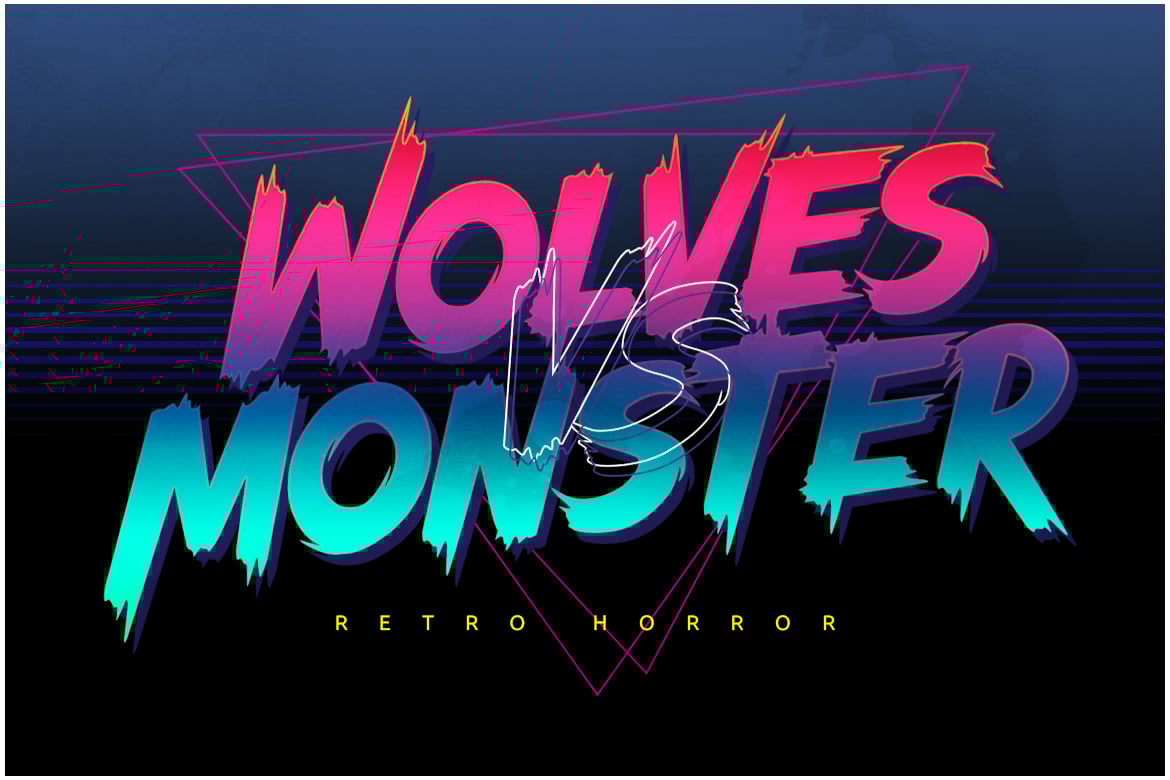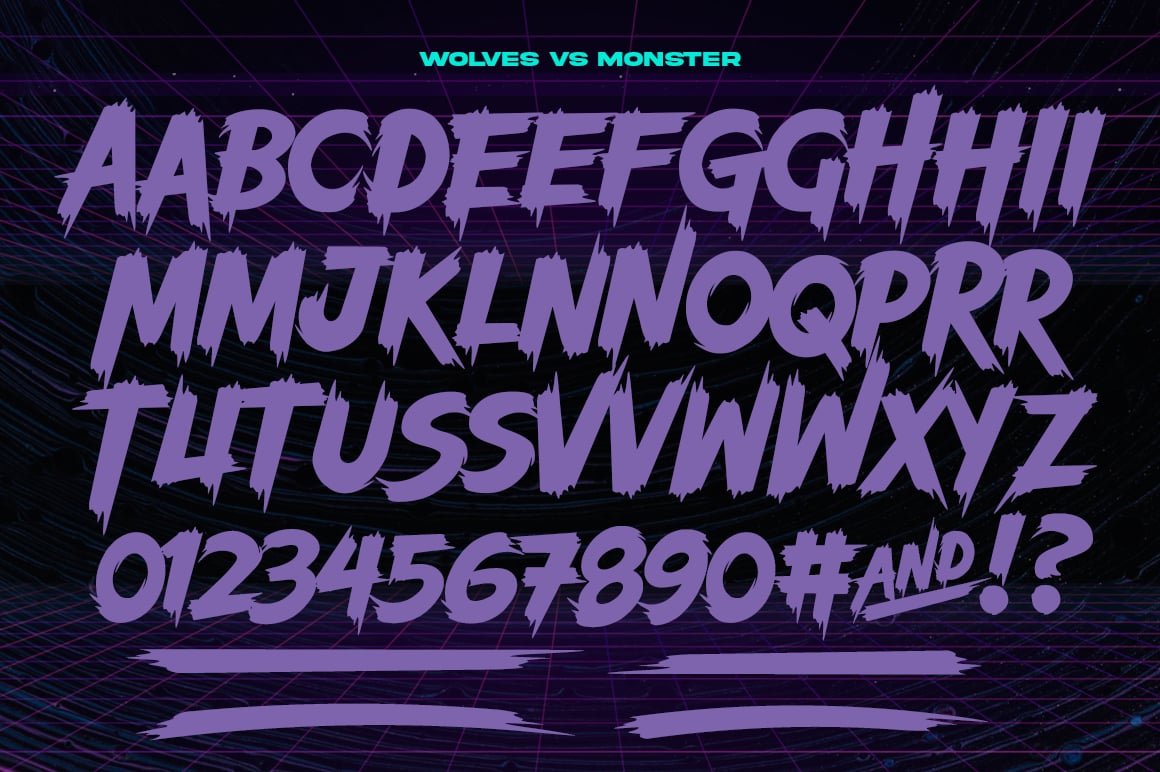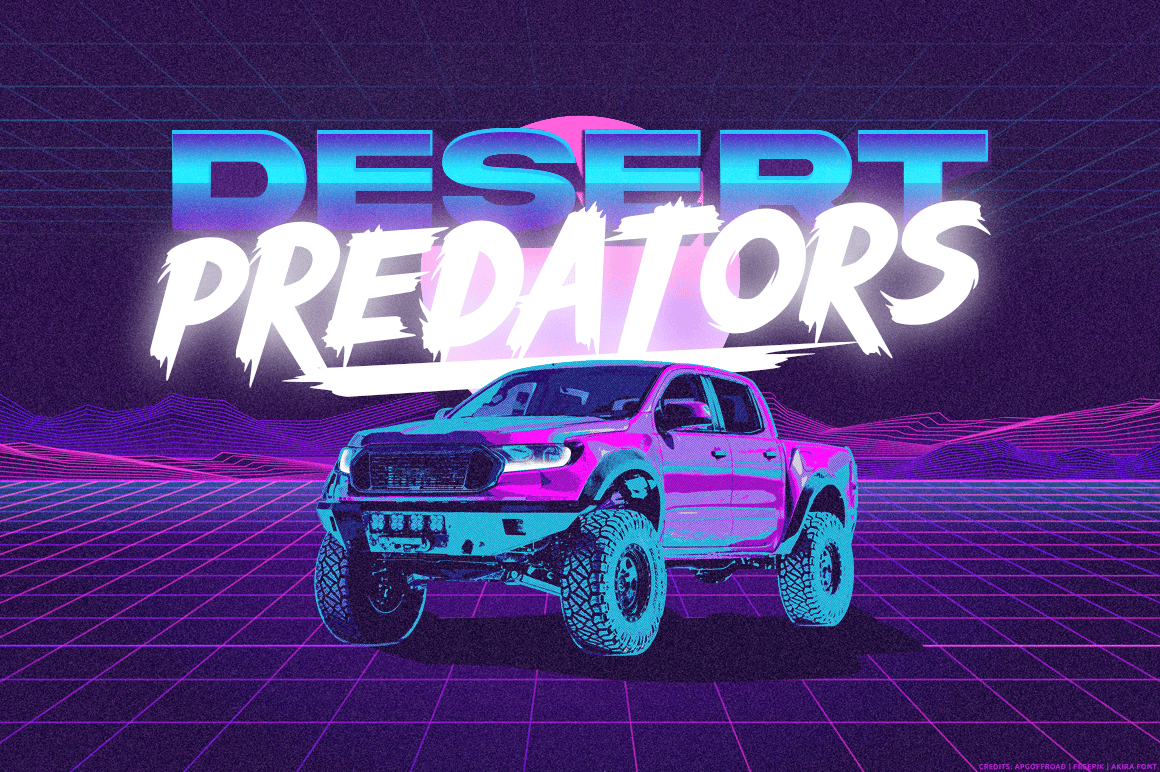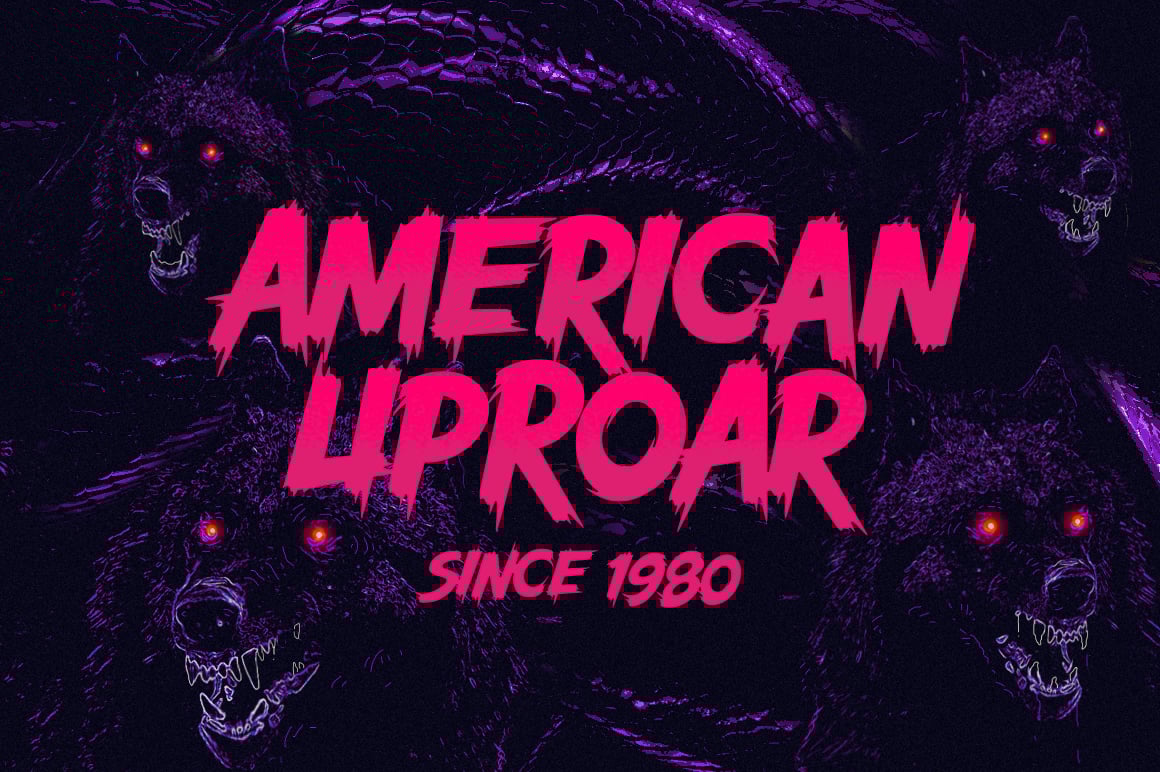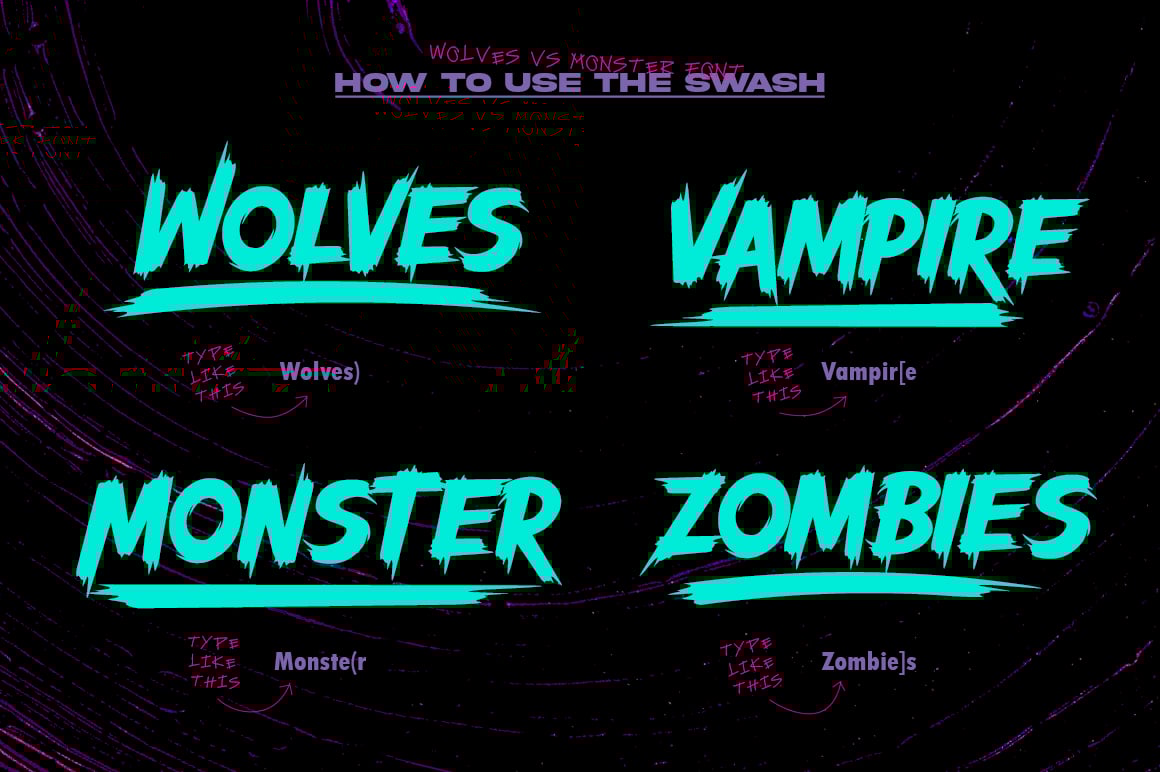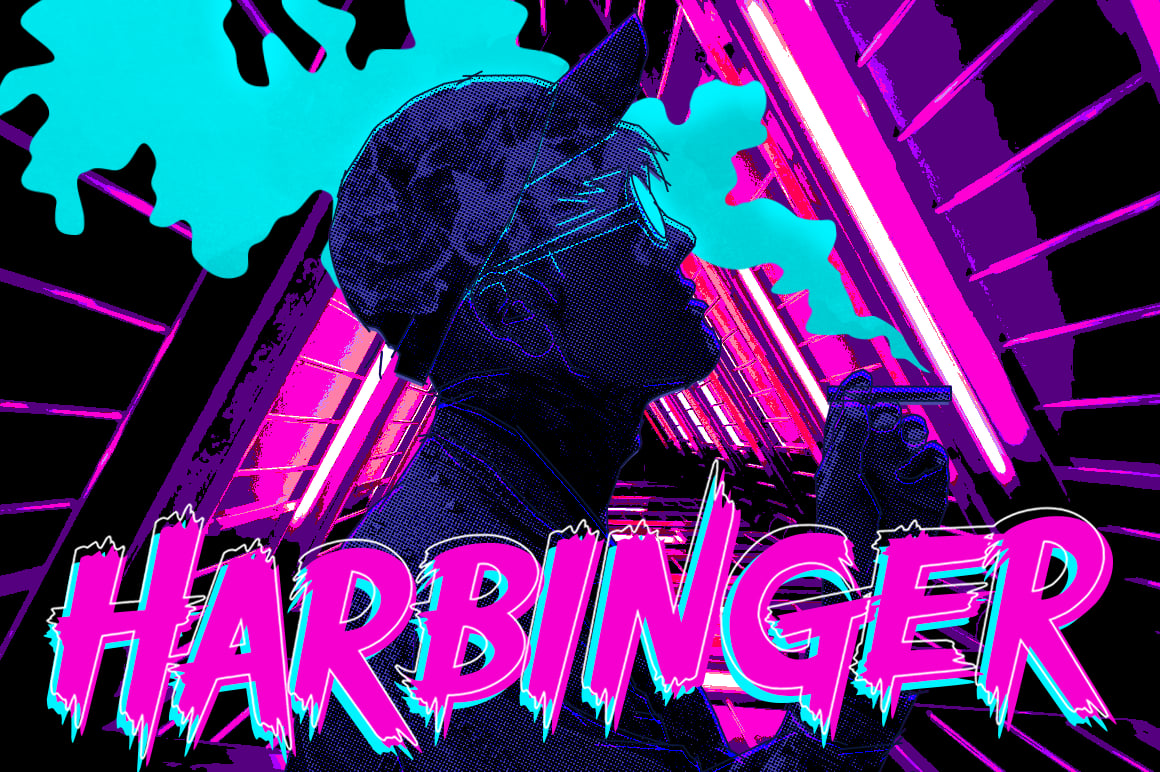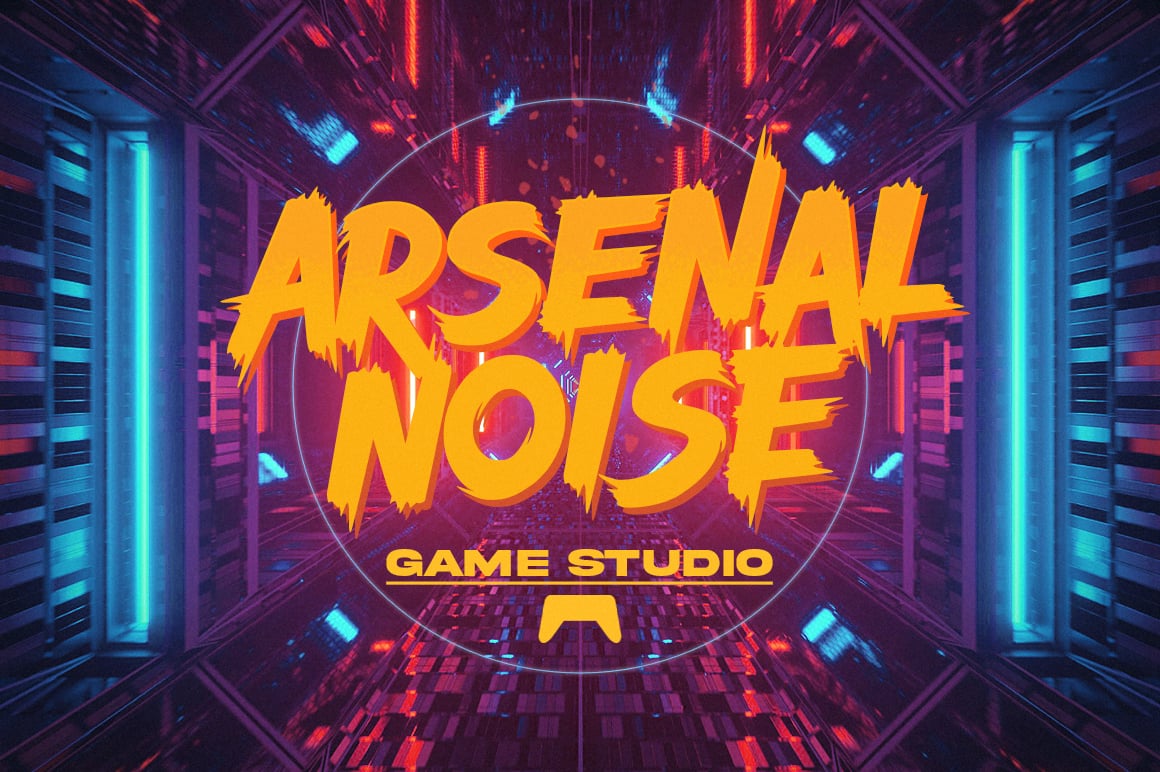
Wolves Vs Monster – Retro Horror Font
Meaner and cleaner aggressive typeface that gives that retrospect feel to your designs. Inspired by the thriller and horror movies of the 80’s. This font will add an element of surprise to your logo, gaming channel, video game apps, band album covers, shirt designs, offroad stickers; you name it. A retrowave horror font for all season!
To use the swash try typing this way:
Wolves)
Monste(r
Vampir[e
Zombie]s